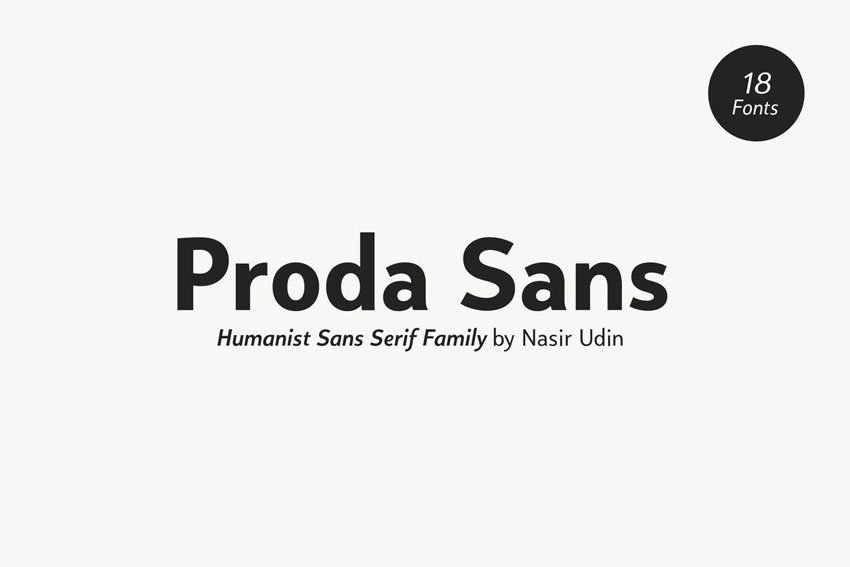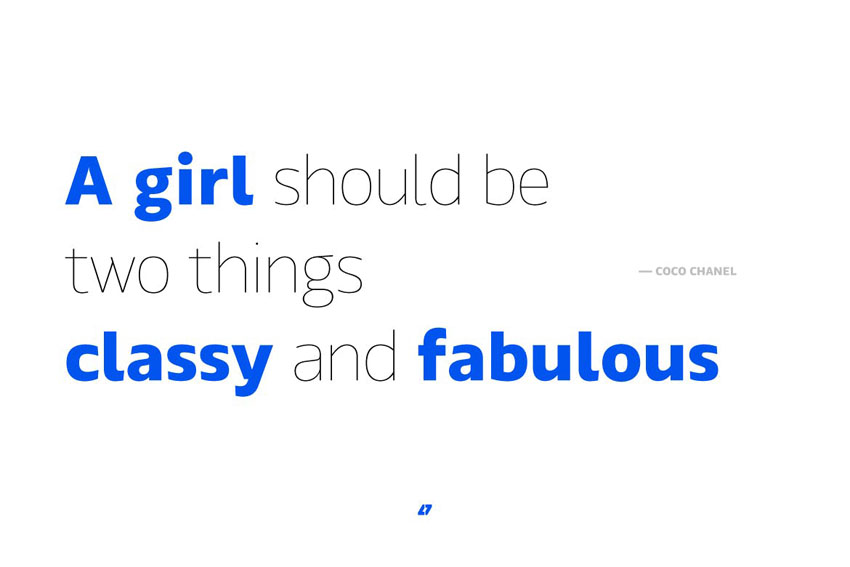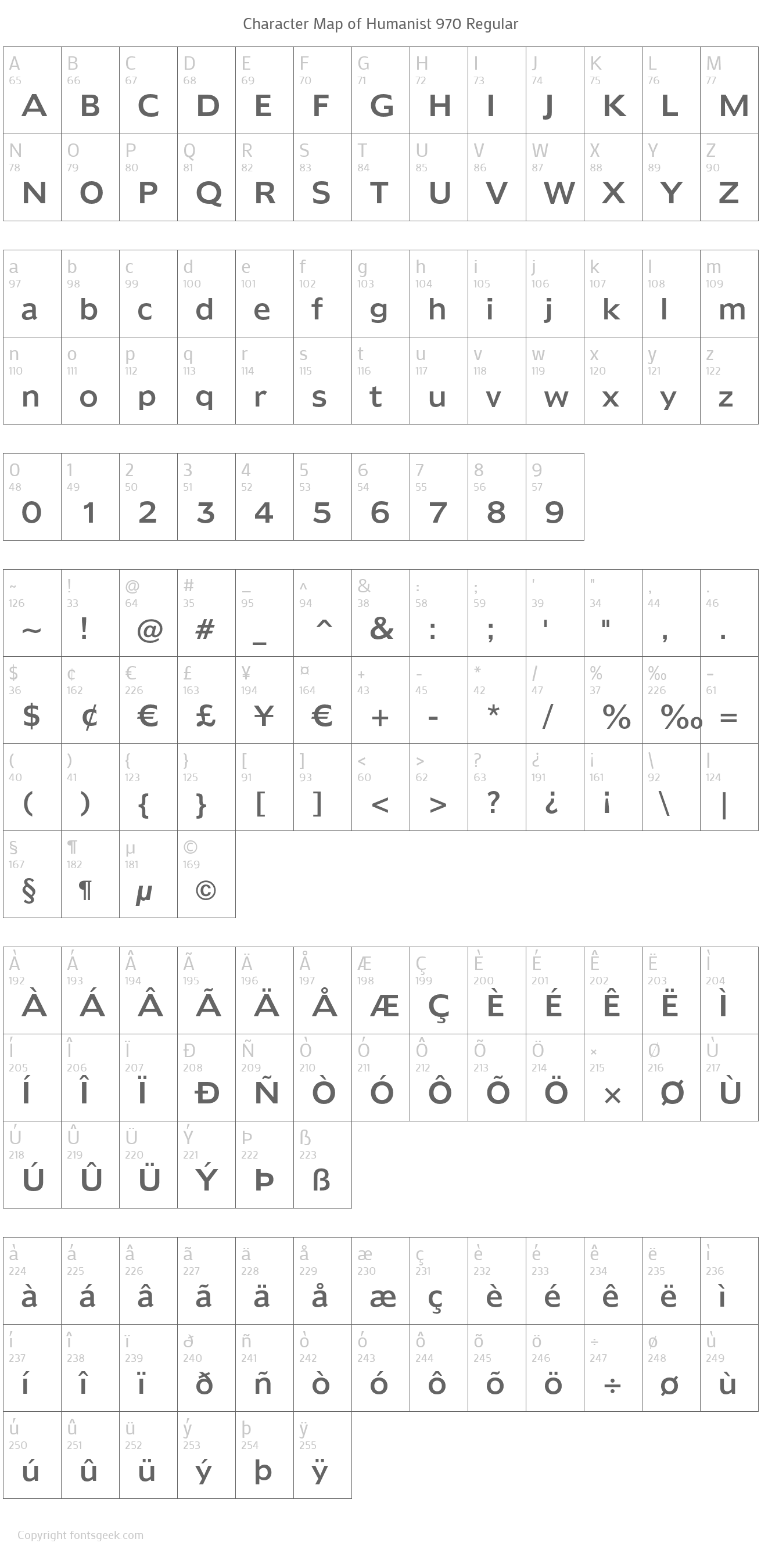
Humanist is part of t e x live. The first roman typefaces created during the 15th century by venetian printers. Share your examples of fonts in use.
This Font Has An Amazing Eight Different Weights—But It Turns Into 16 When You Take A Look At All The Italic Variants.
These typefaces sought to imitate the formal hands found in the humanistic (renaissance) manuscripts of the time. Open sans condensed font, is another excellent example of one of the best humanist sans serif typeface choices for body text, print, or web content & more. Here is a preview of how ff humanist™ will look.
And Here Are Some Examples Of Humanist Faces: